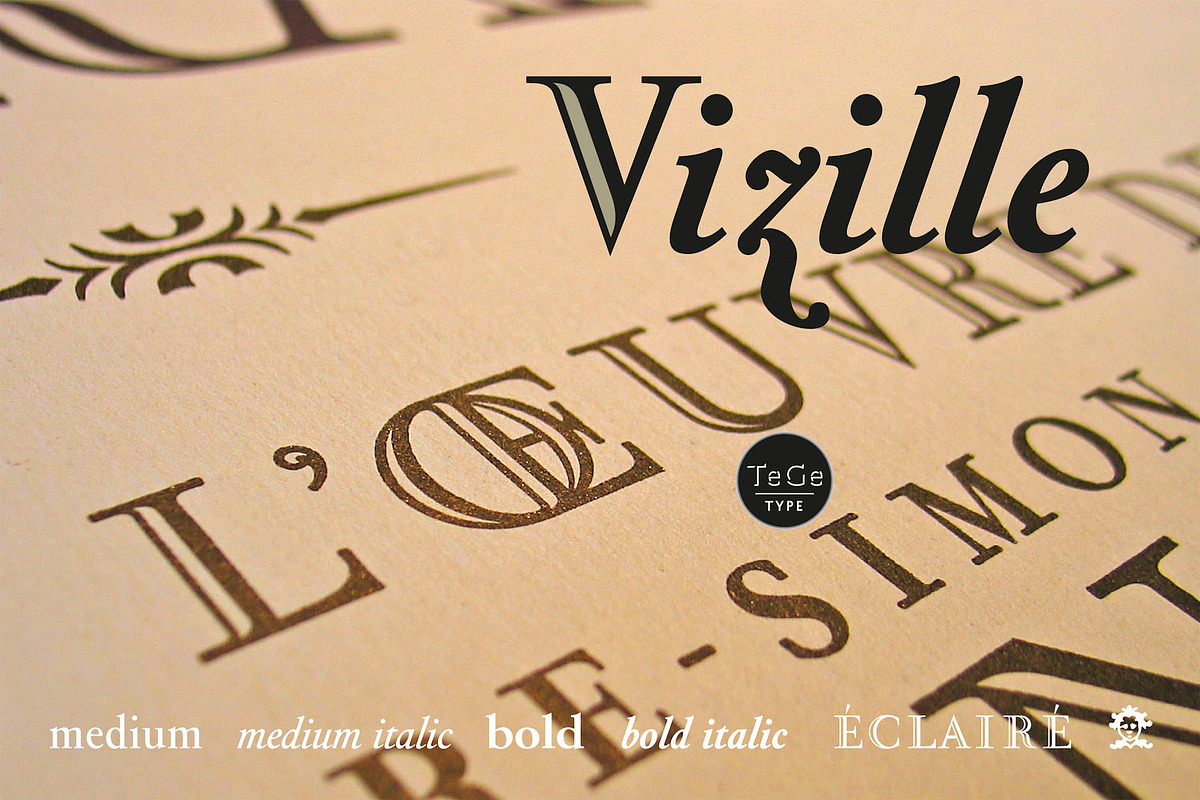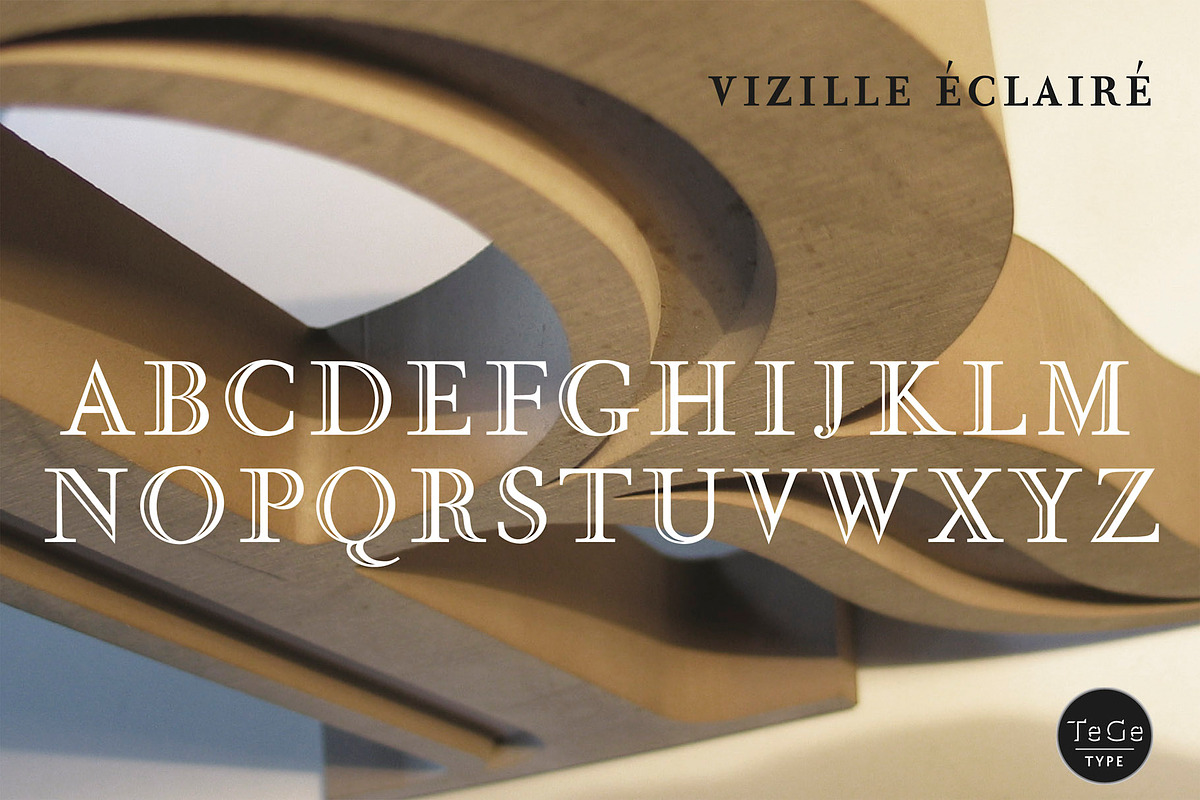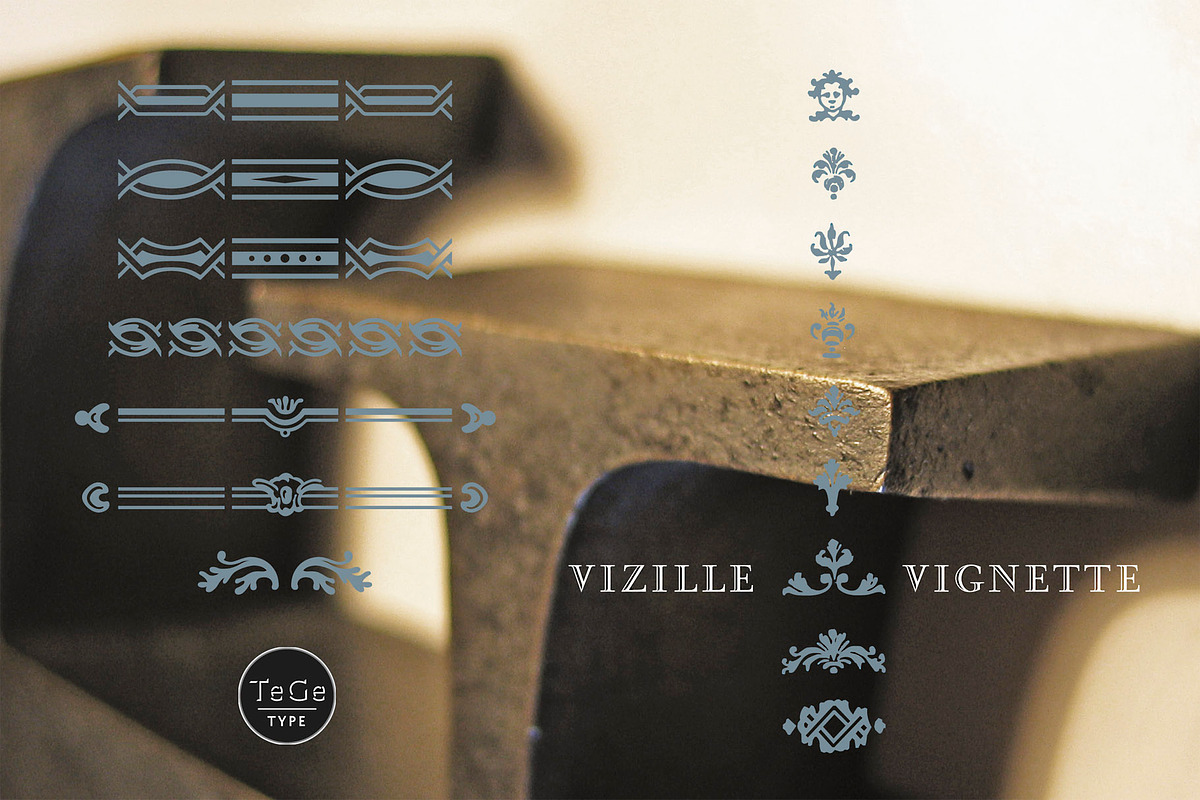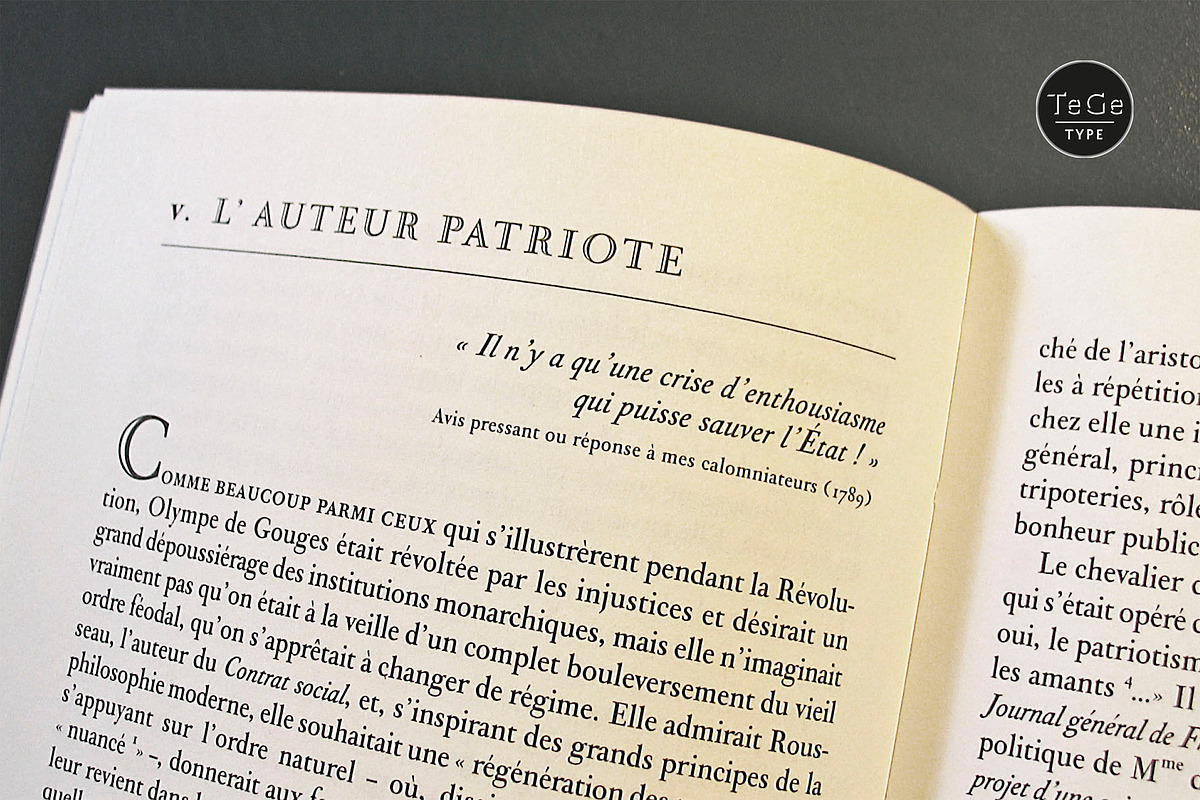
Vizille
The Vizille family, inspired by French typography of the 18th Century, is the typeface used as corporate identity by the "Musée de la Révolution française".